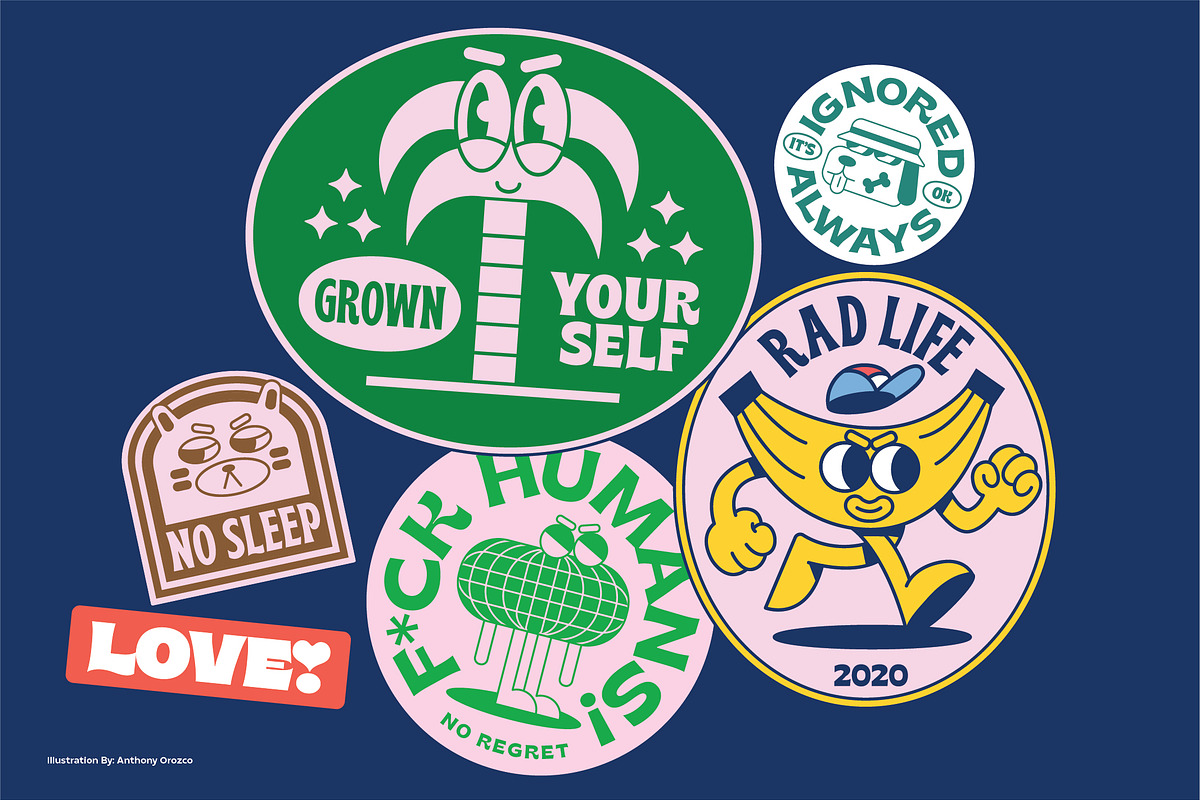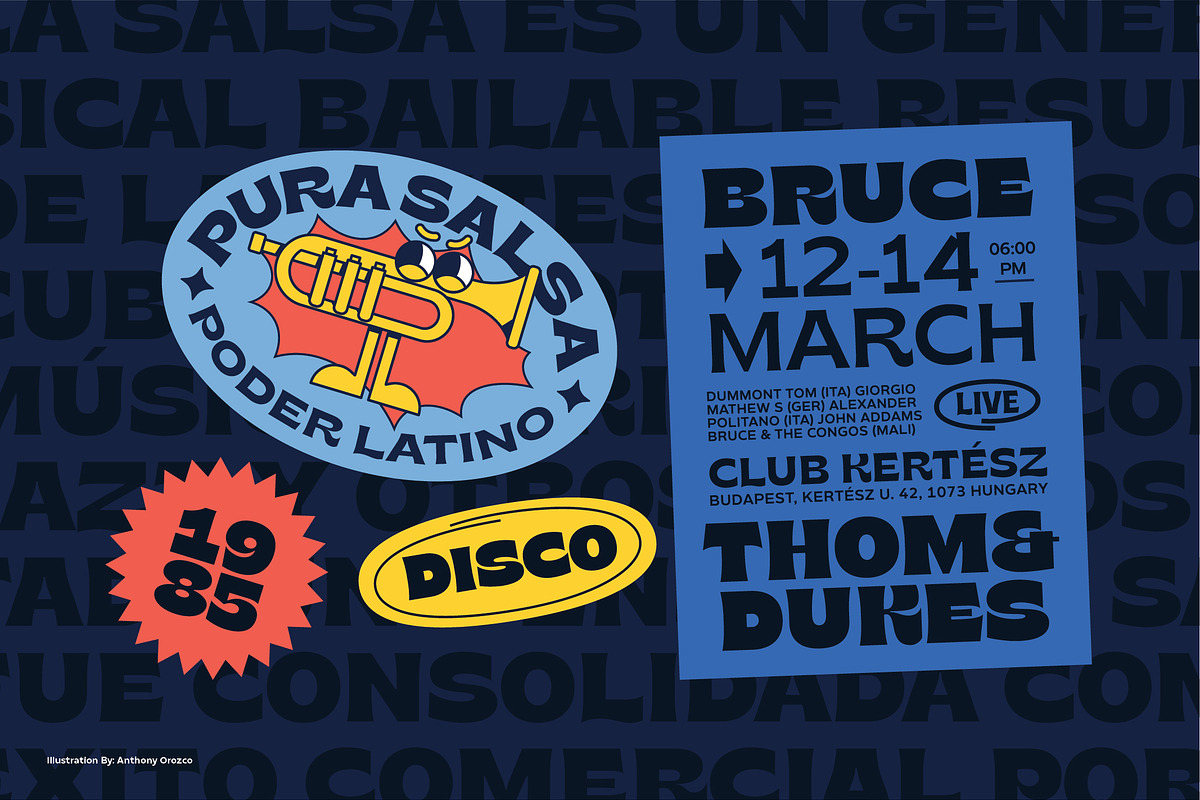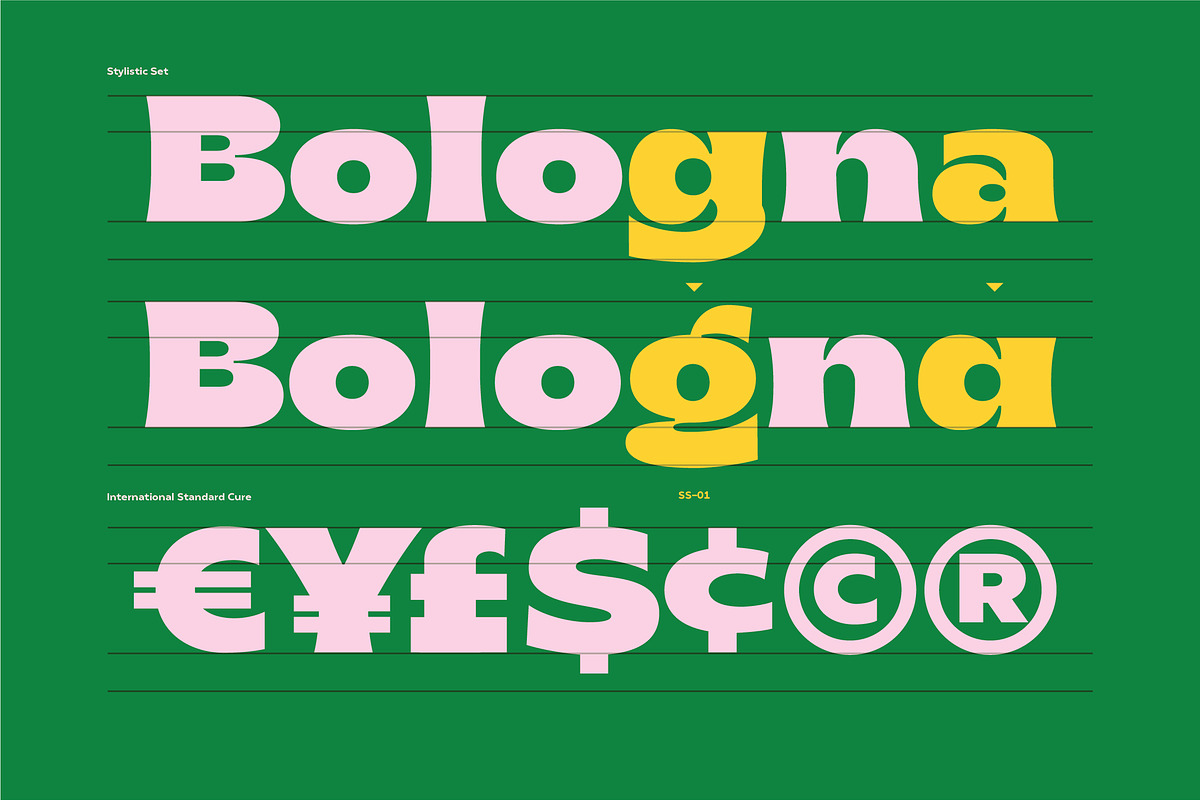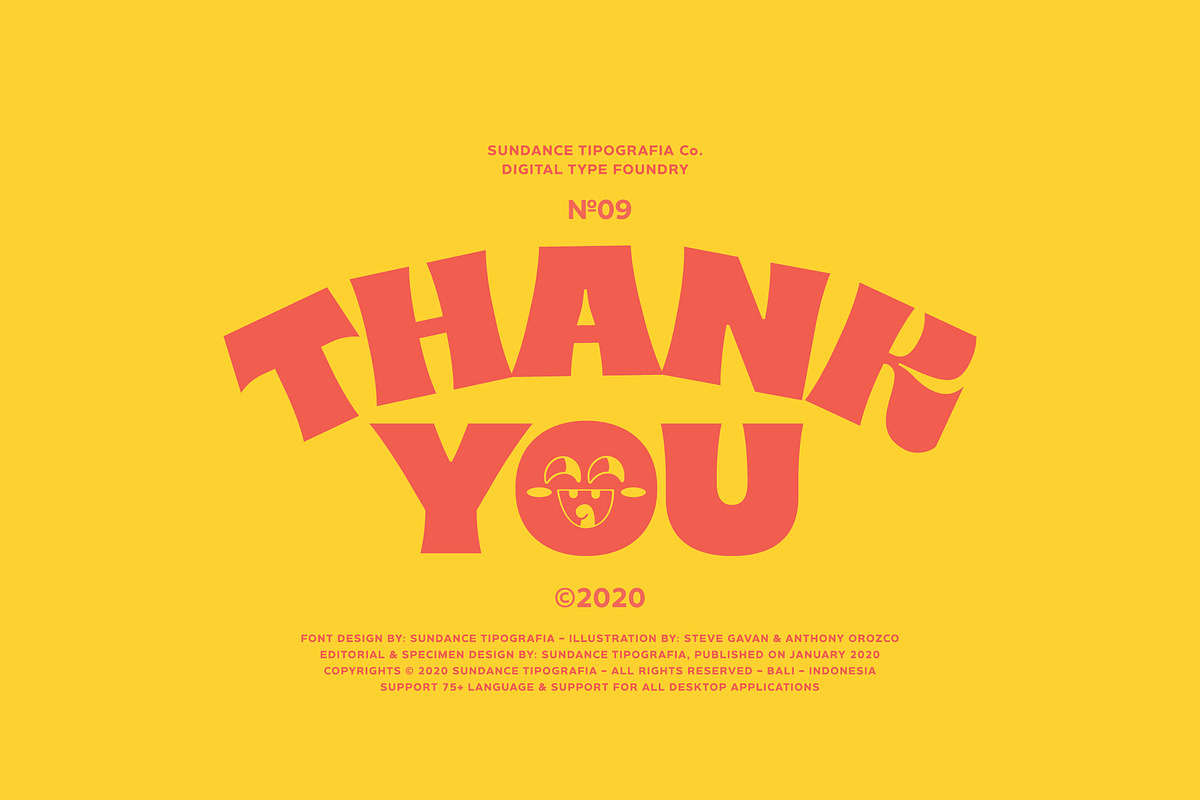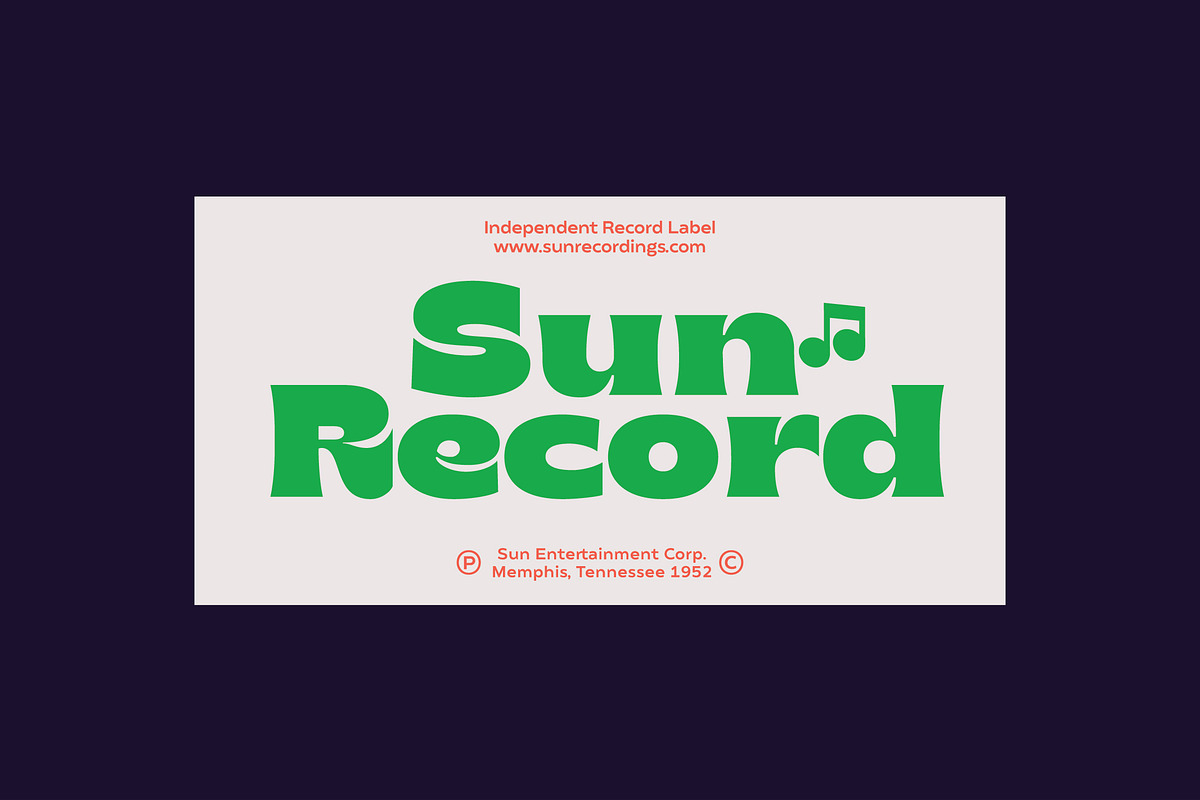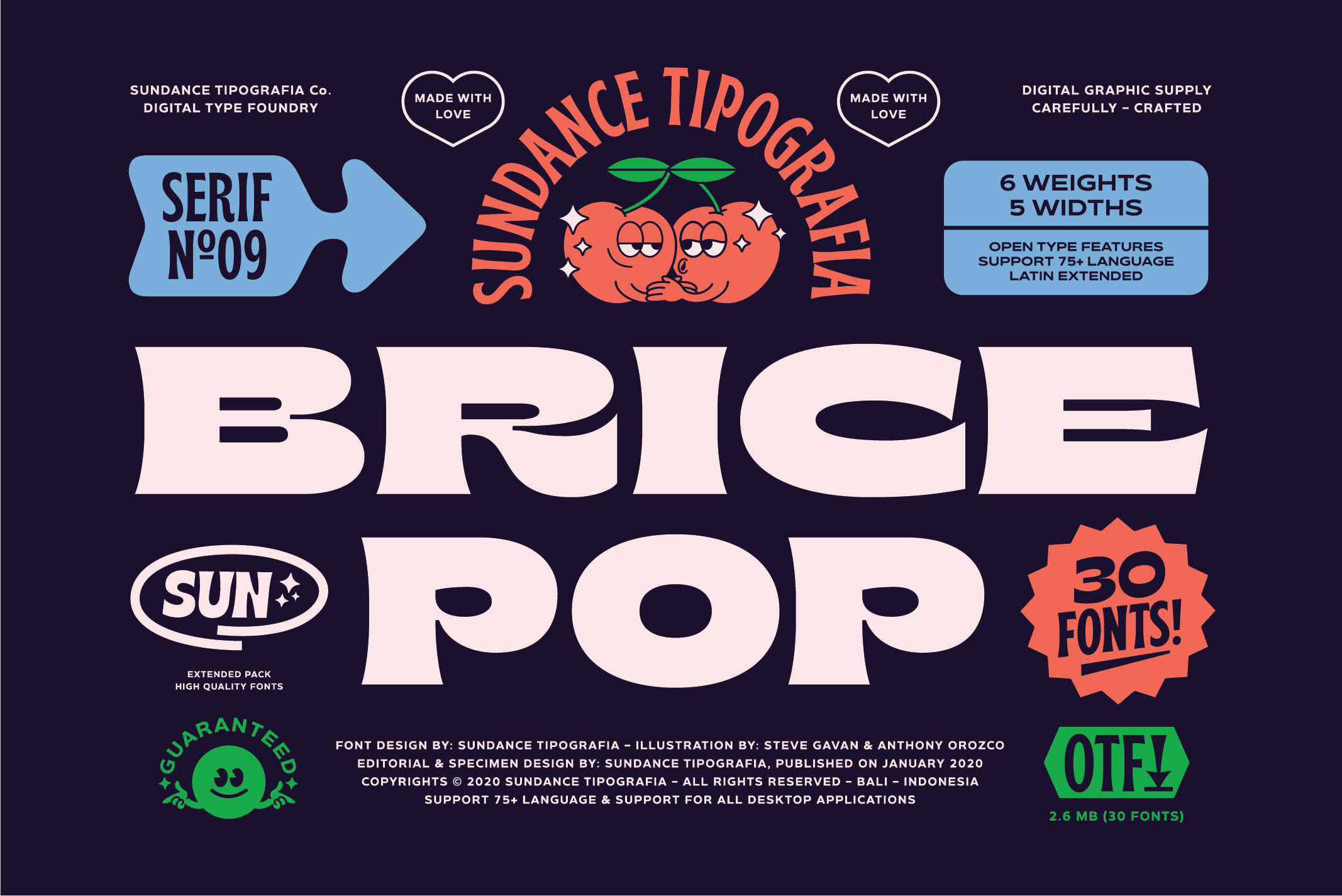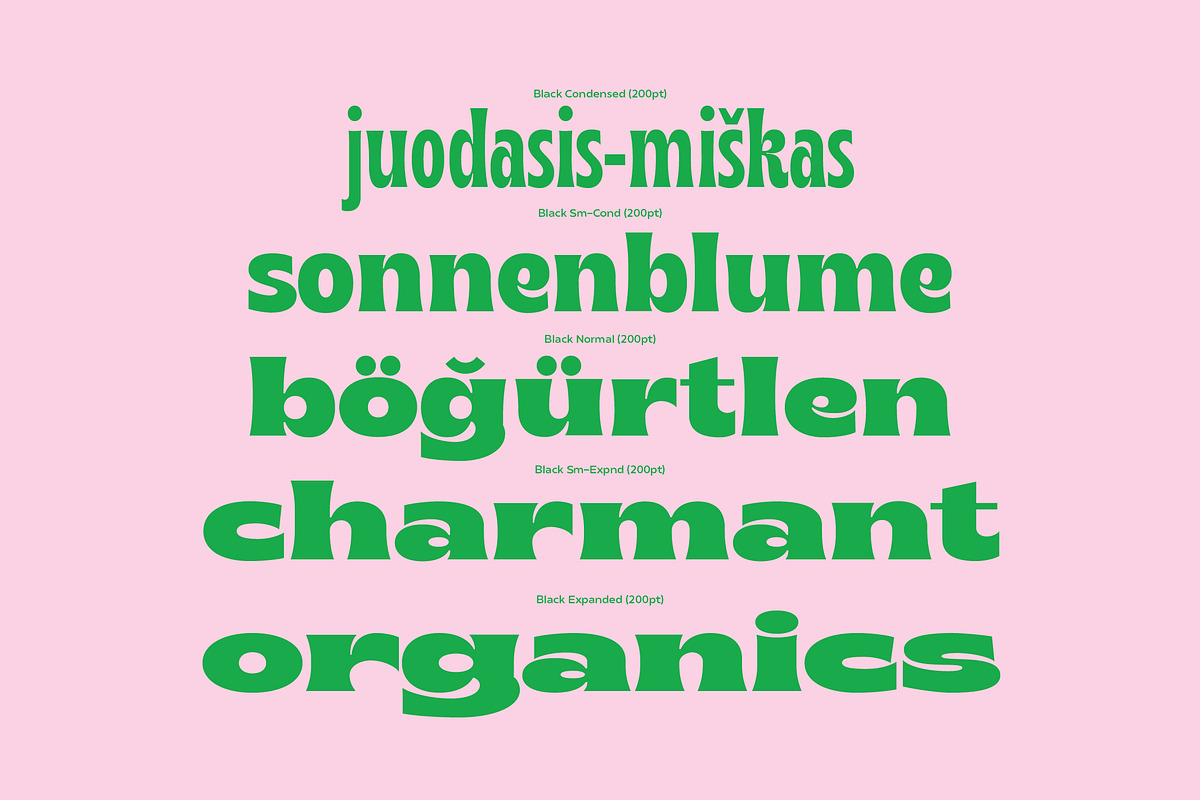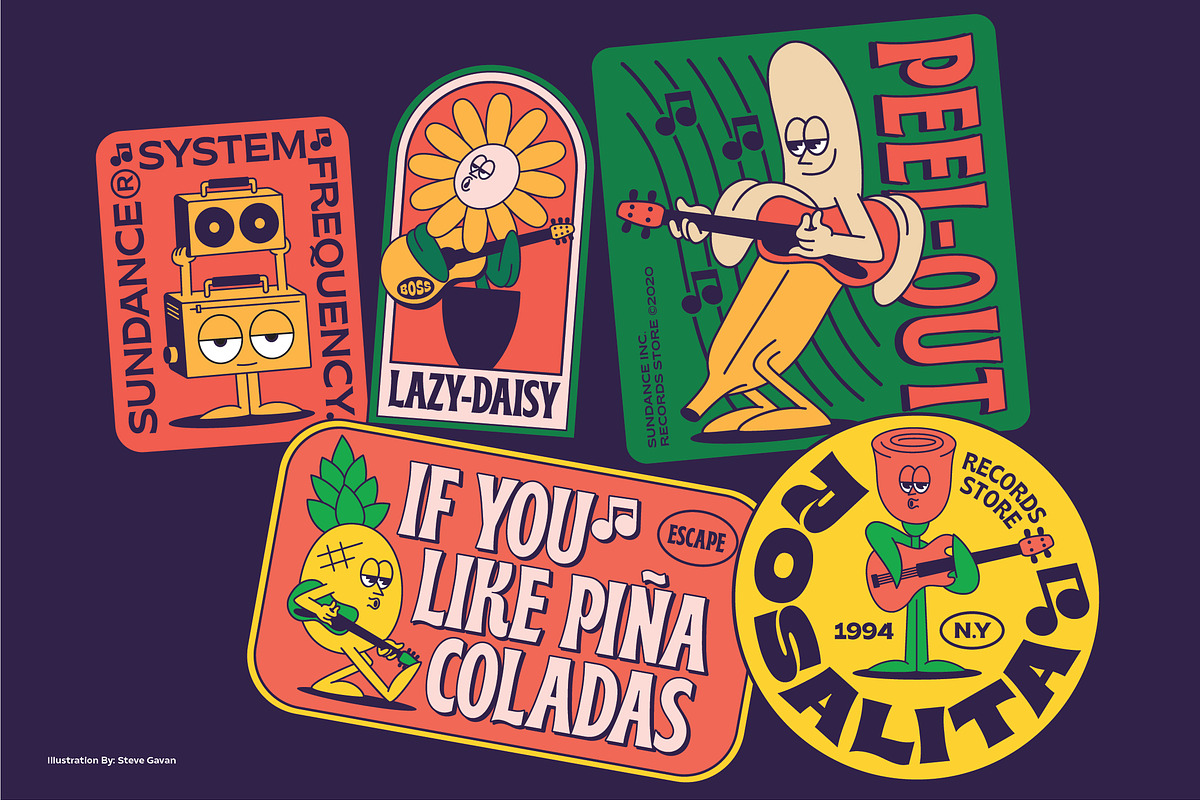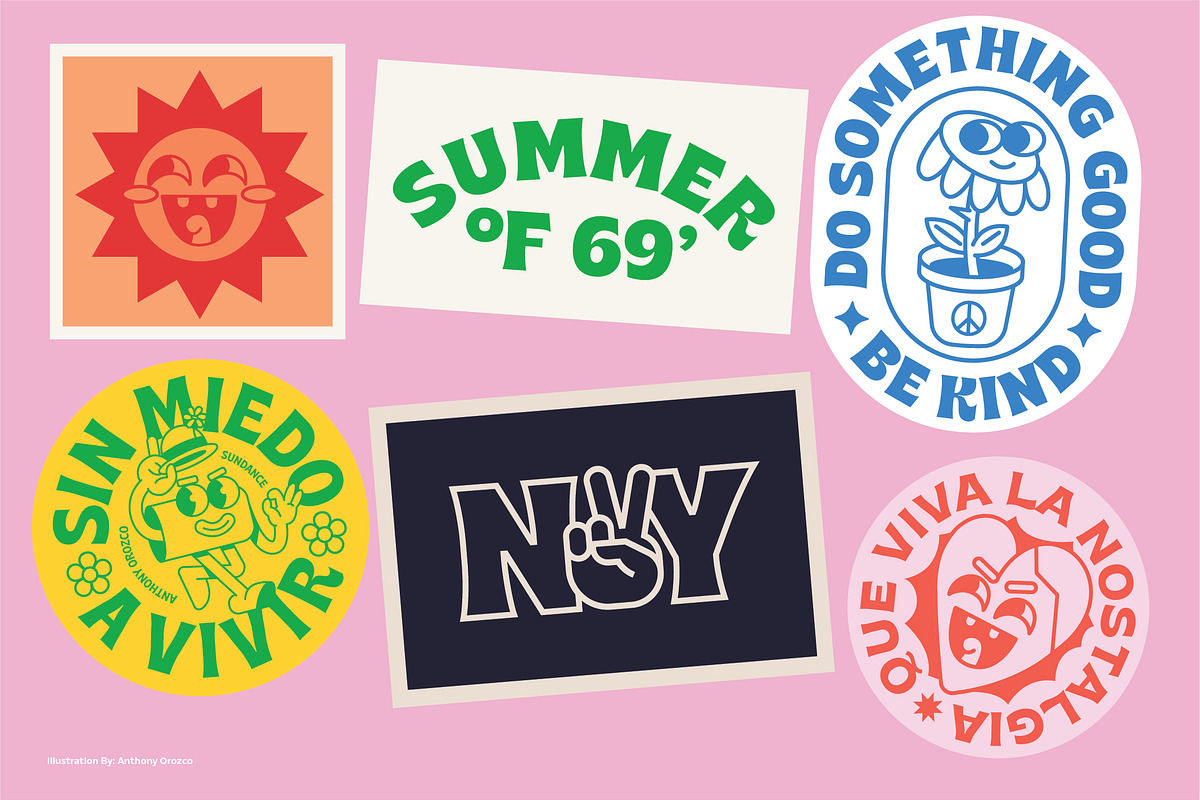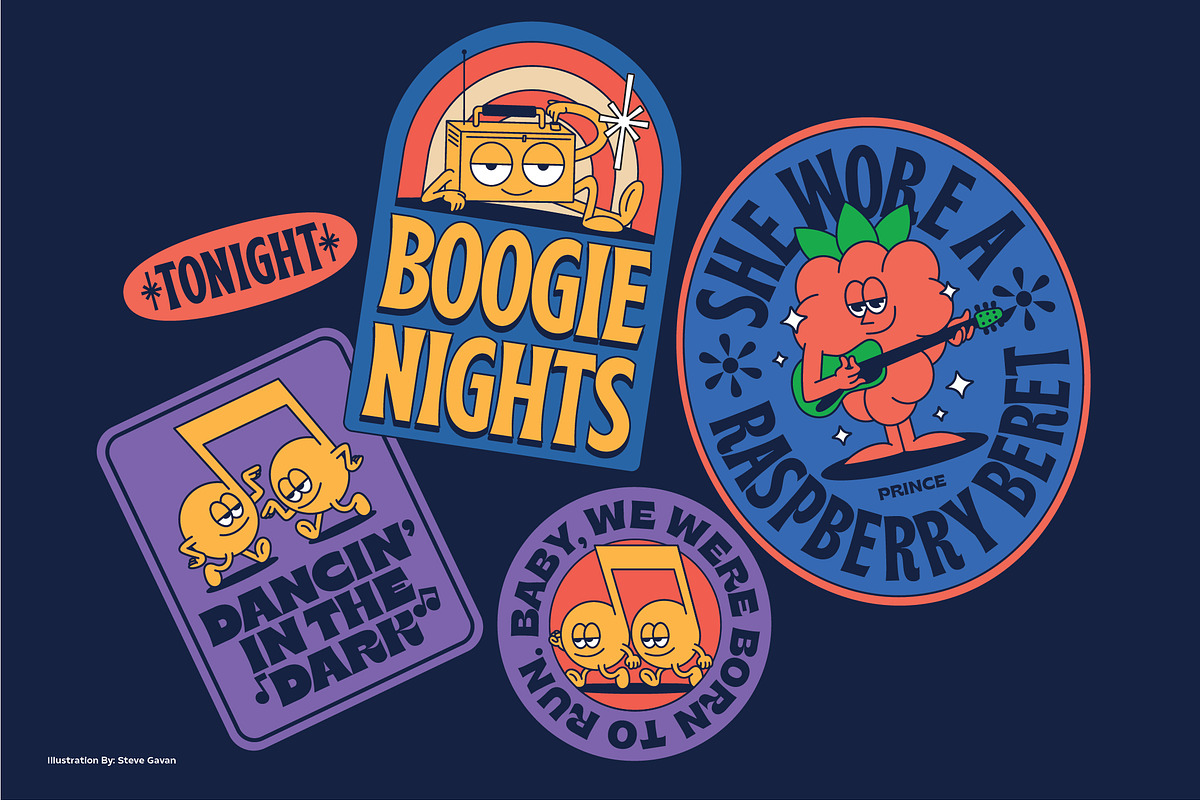
Brice refers to cultural products of the 80s such as music, art, literature, fashion, dance, film, that are consumed by the majority of society population. The Characteristic of Brice are in the small bouncy serif with a dynamic contrast, like R, B, S, K, P, etc. Perfect for Logotype, Caption, & Header.
Brice are available in 5 Widths (Condensed - SemiCondensed - Normal - SemiExpanded - Expanded) with matches 6 weights (ExtraLight - Normal - SemiBold - Bold - Black) and support for 75+ language.